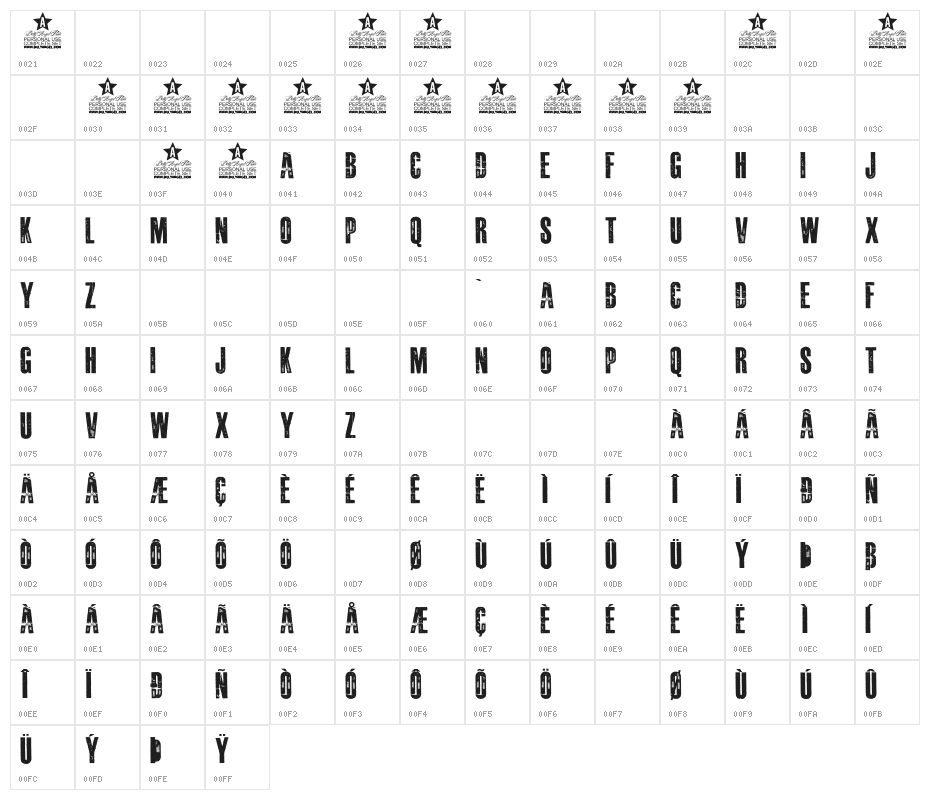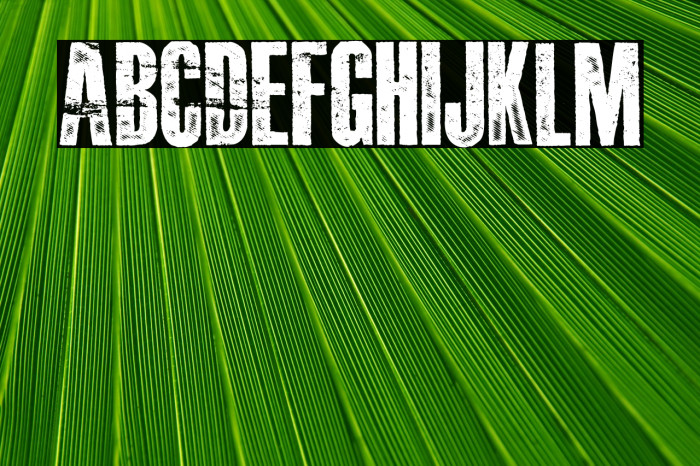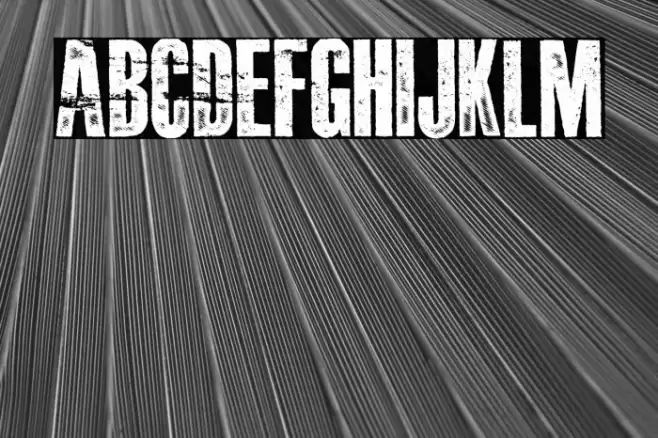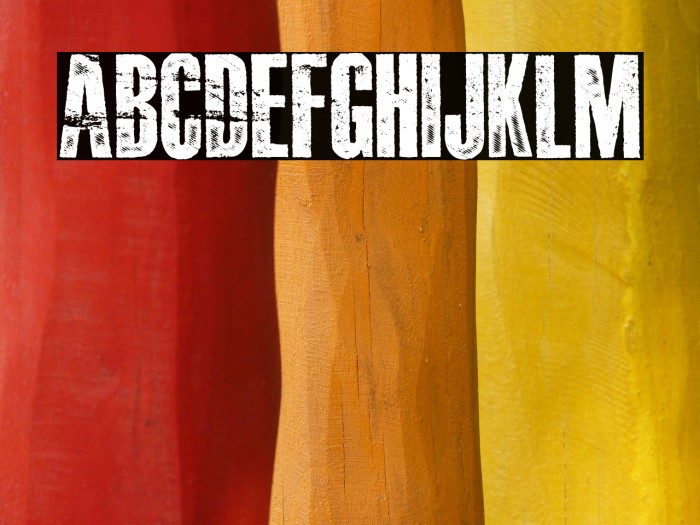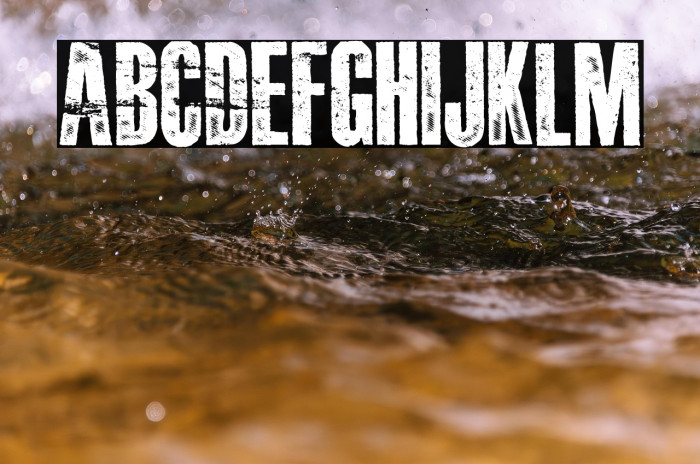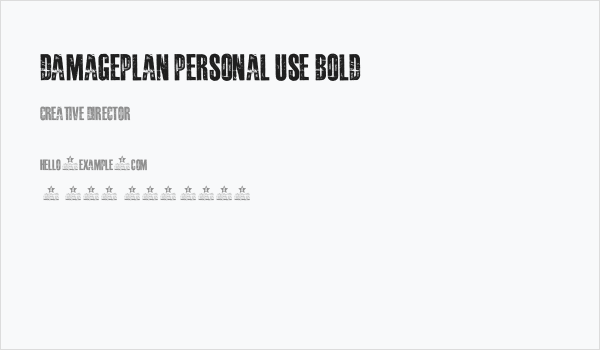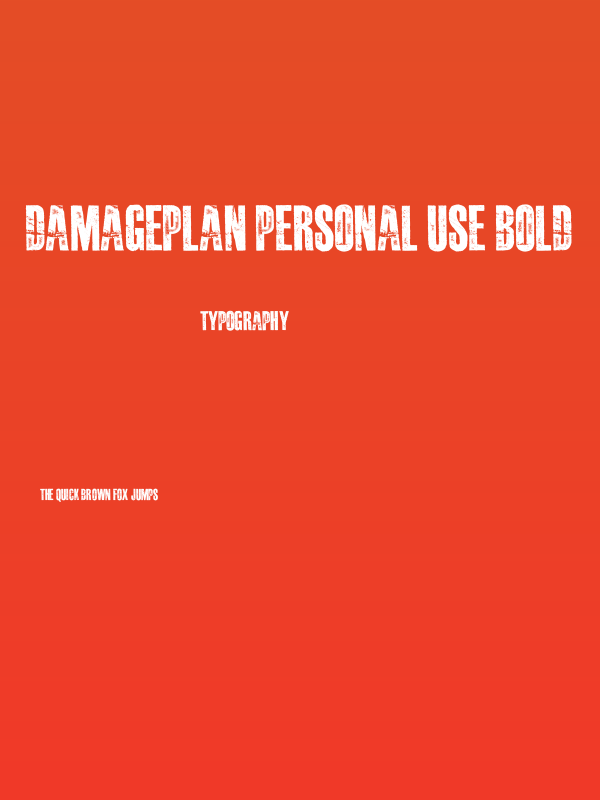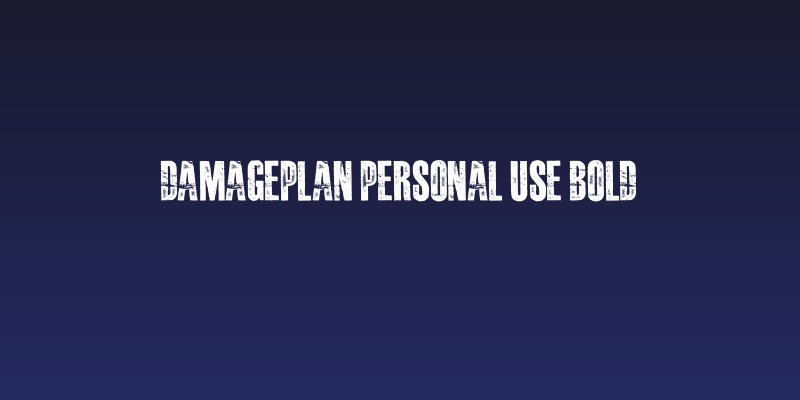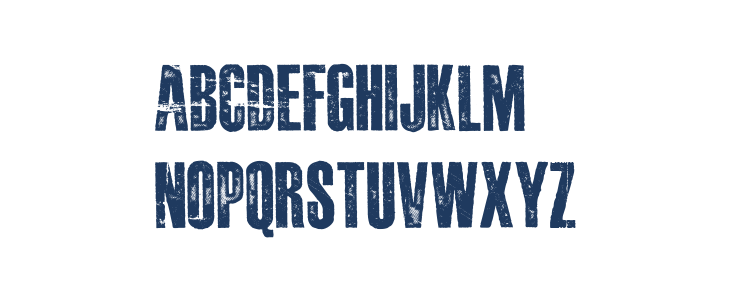
DAMAGEPLAN PERSONAL USE Bold Font
DAMAGEPLAN PERSONAL USE Bold Description
This font features a bold, distressed style with a rugged texture that gives it a worn, vintage appearance. The uppercase letters are prominent and impactful, making it ideal for attention-grabbing designs. The texture within each character adds a unique, gritty feel, reminiscent of industrial or grunge aesthetics. The font's boldness ensures it stands out, while the distressed details provide a sense of character and depth. It is perfect for projects that require a strong, edgy look.
| Overall Style | Vintage, Industrial, Grunge |
| Proposed Projects | Ideal for posters, album covers, branding for edgy or alternative products, and any design needing a strong, vintage-industrial aesthetic. |